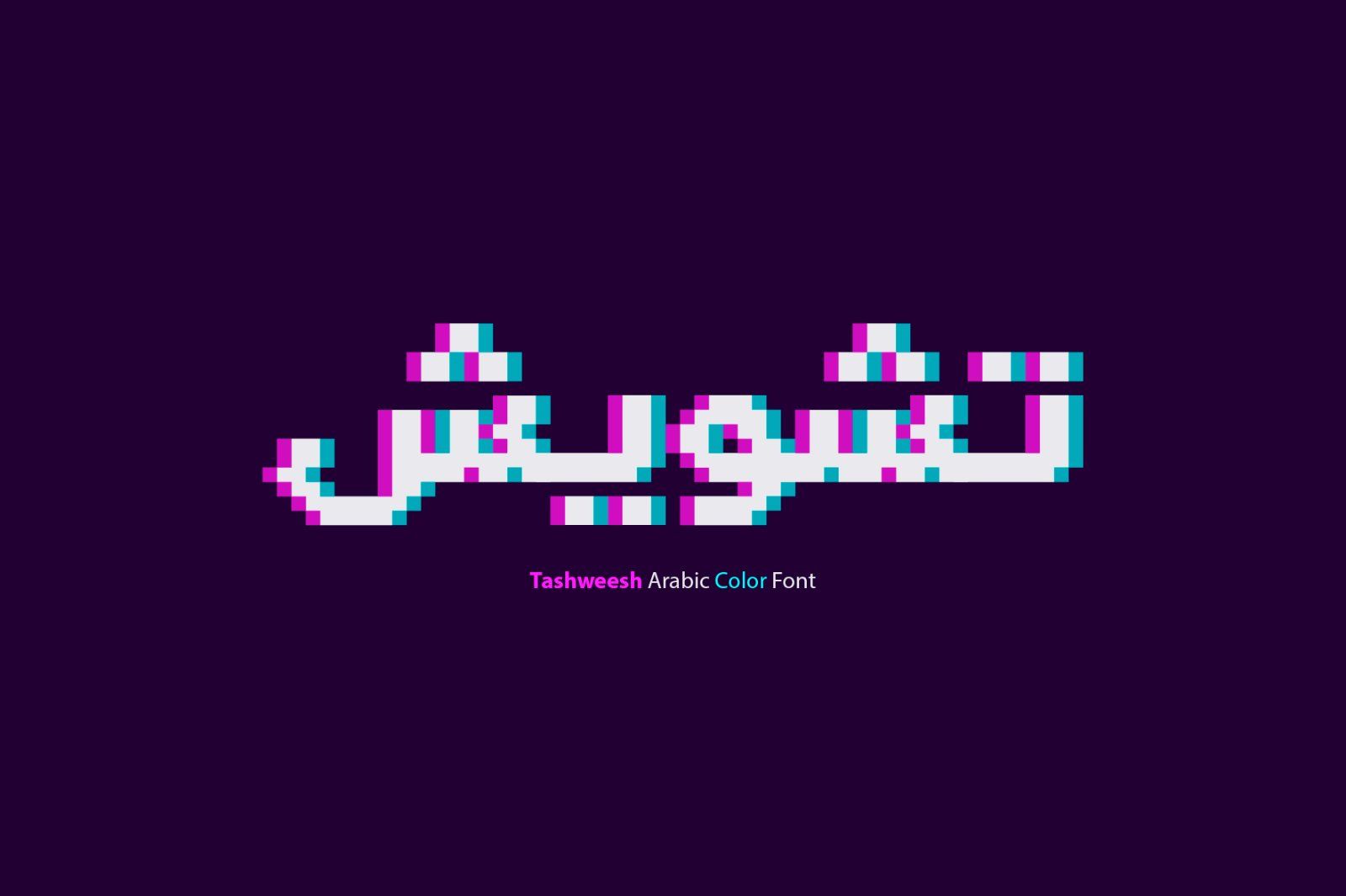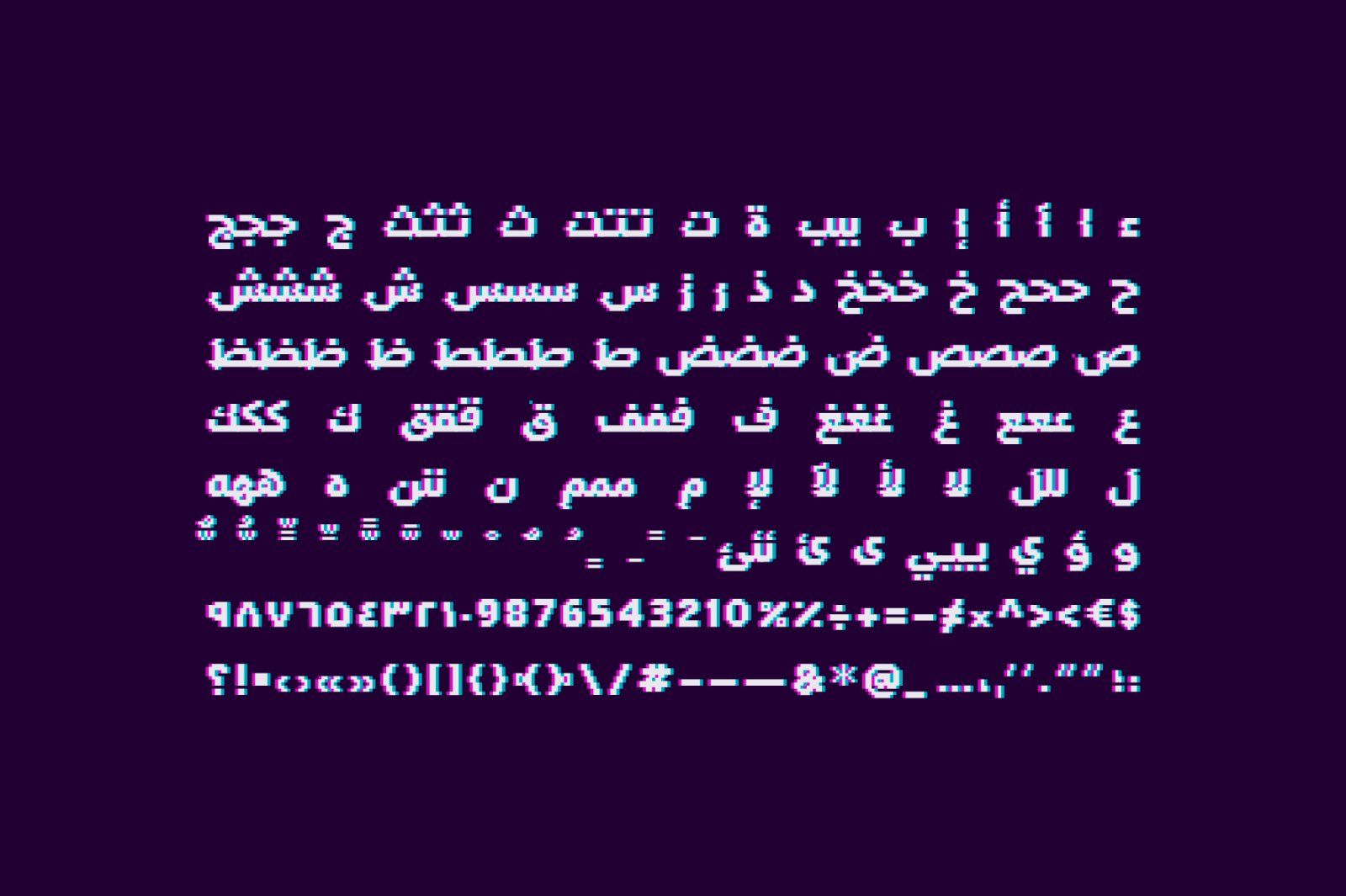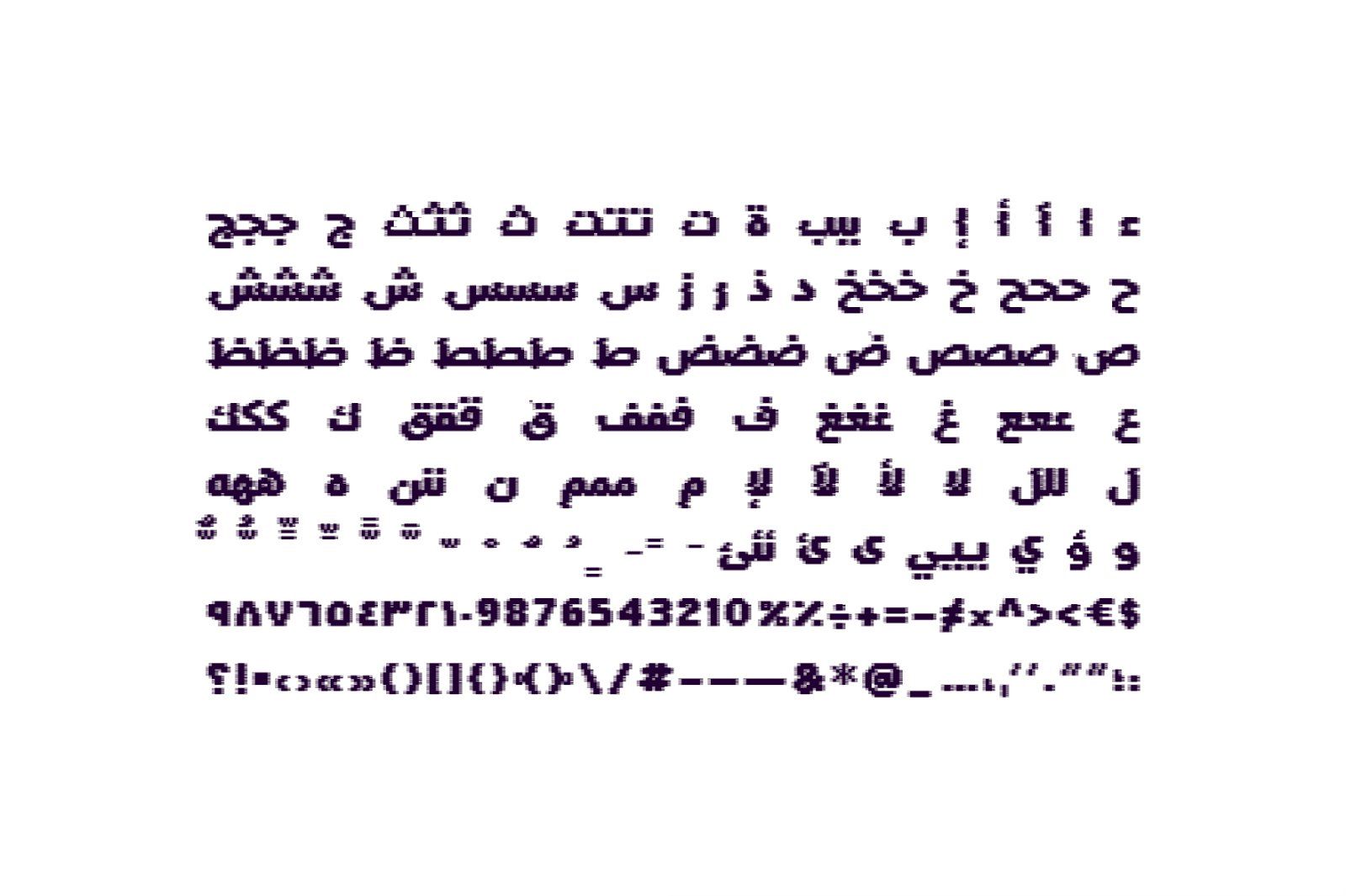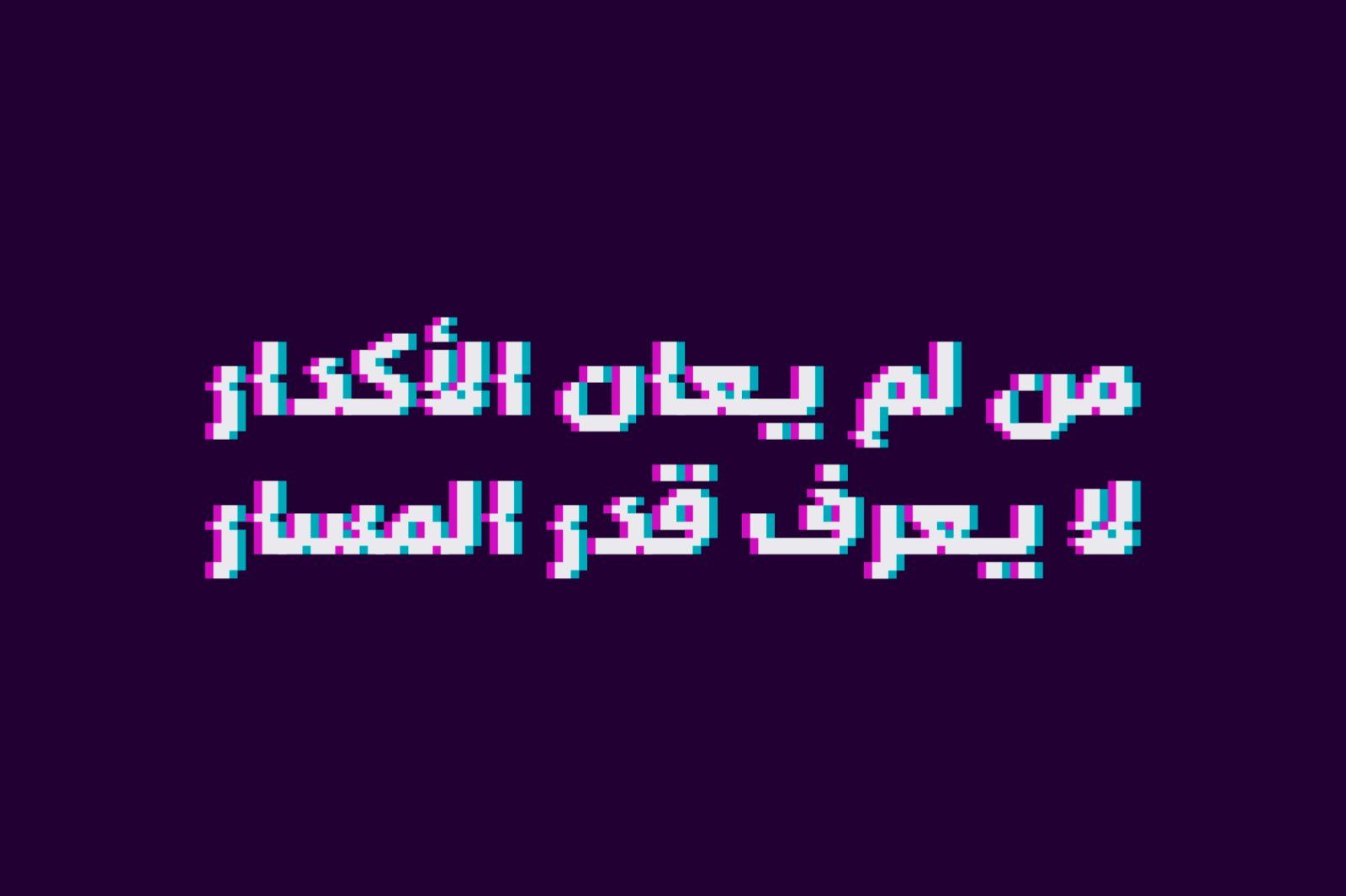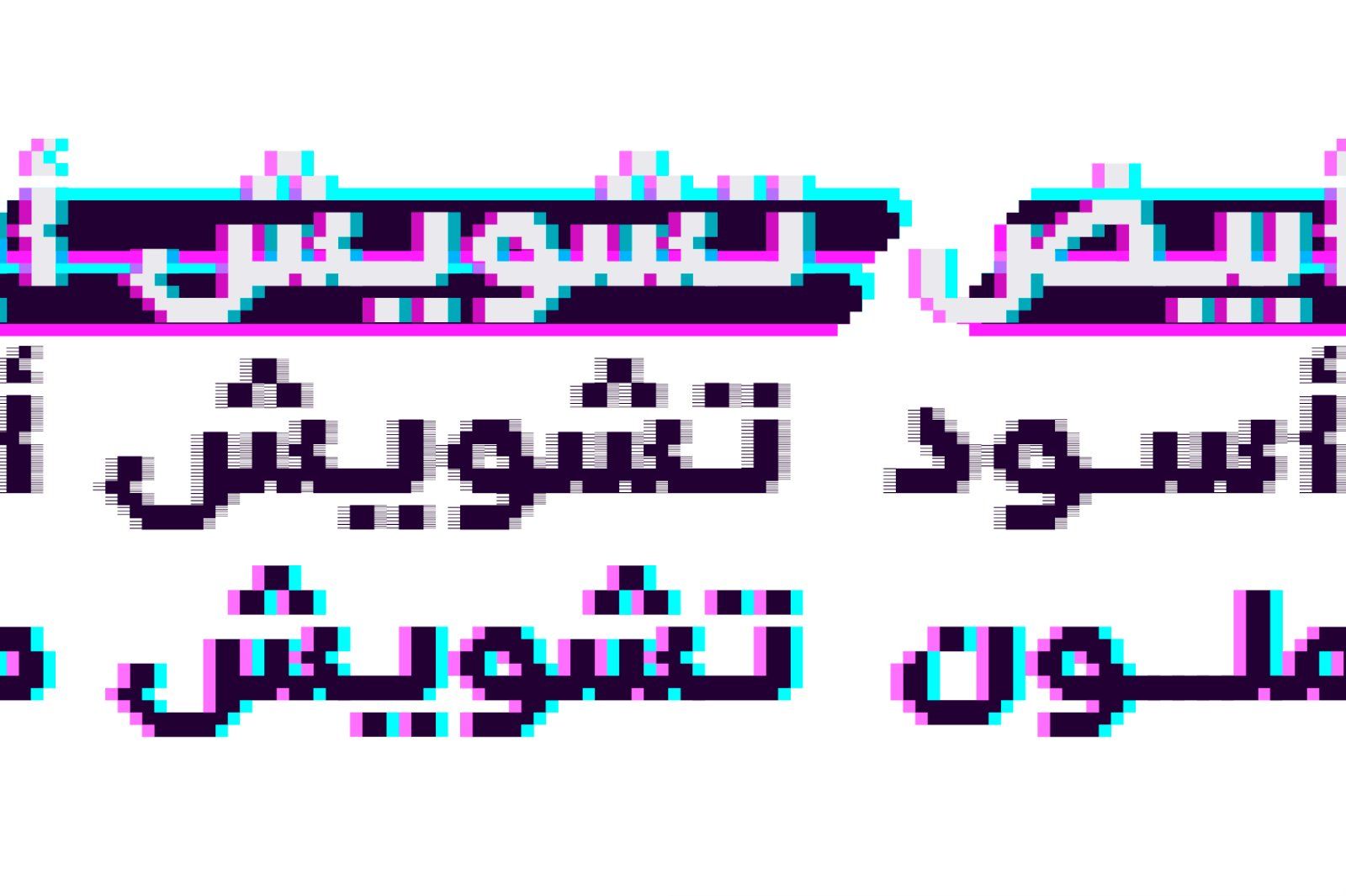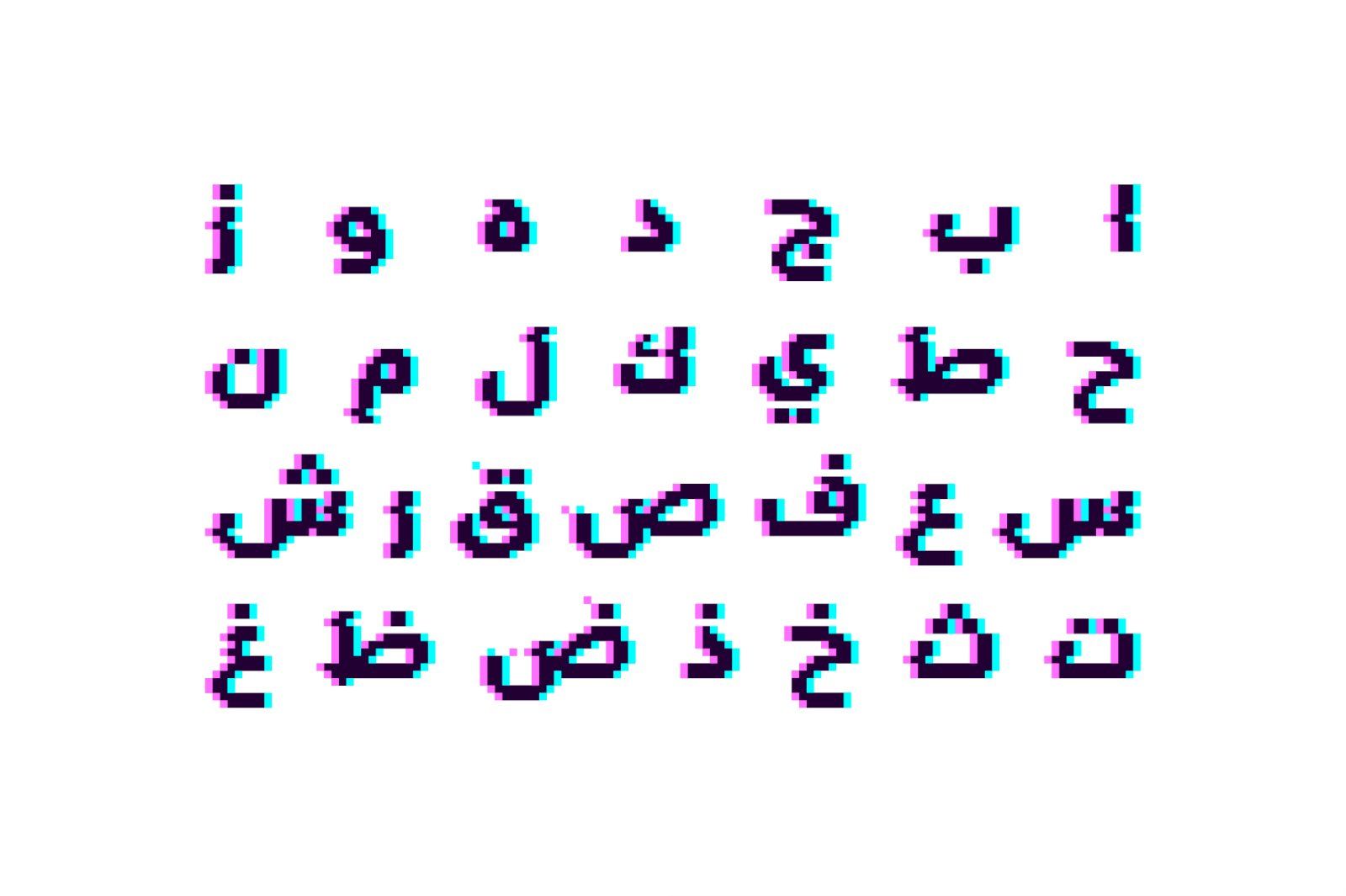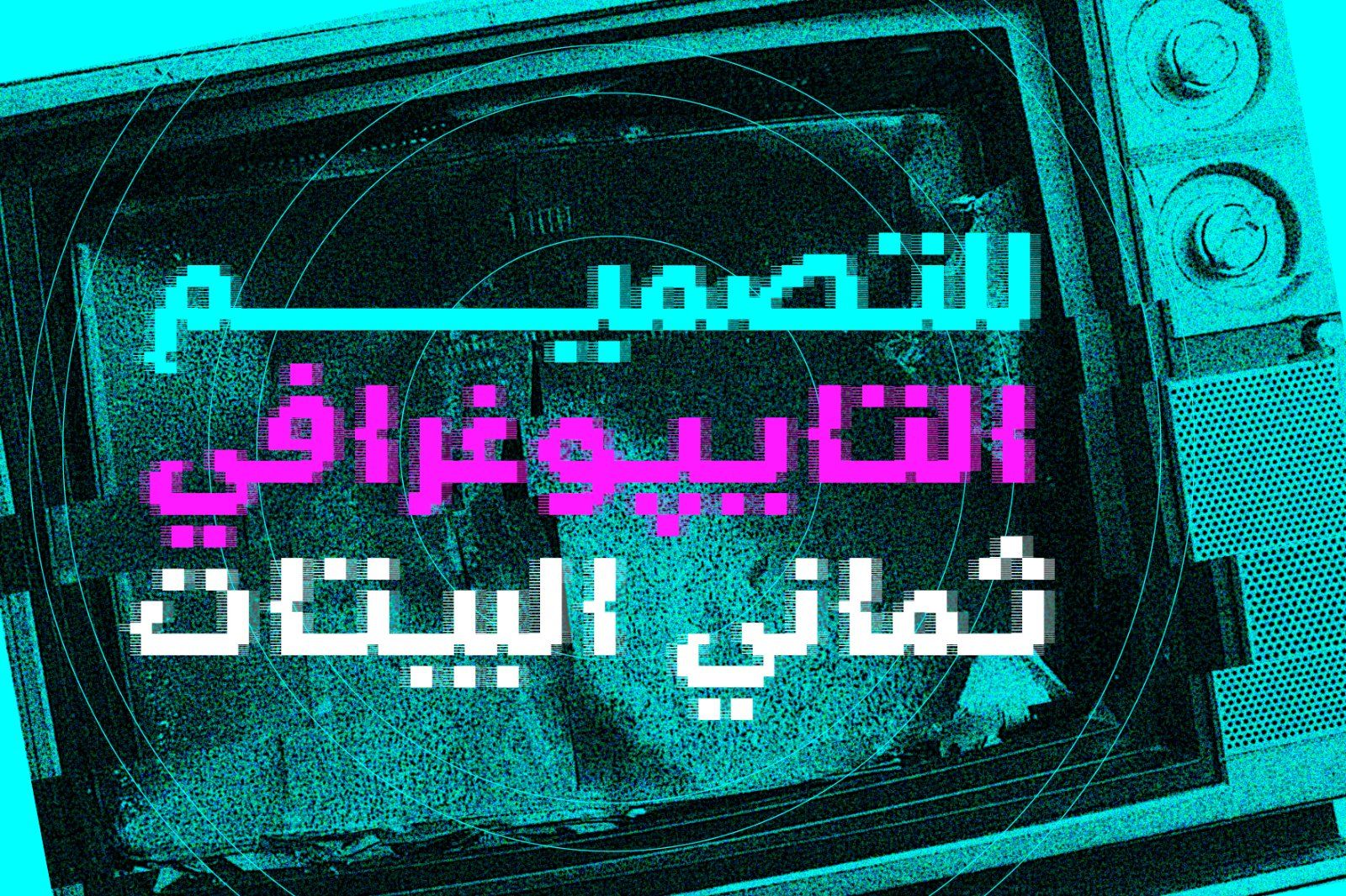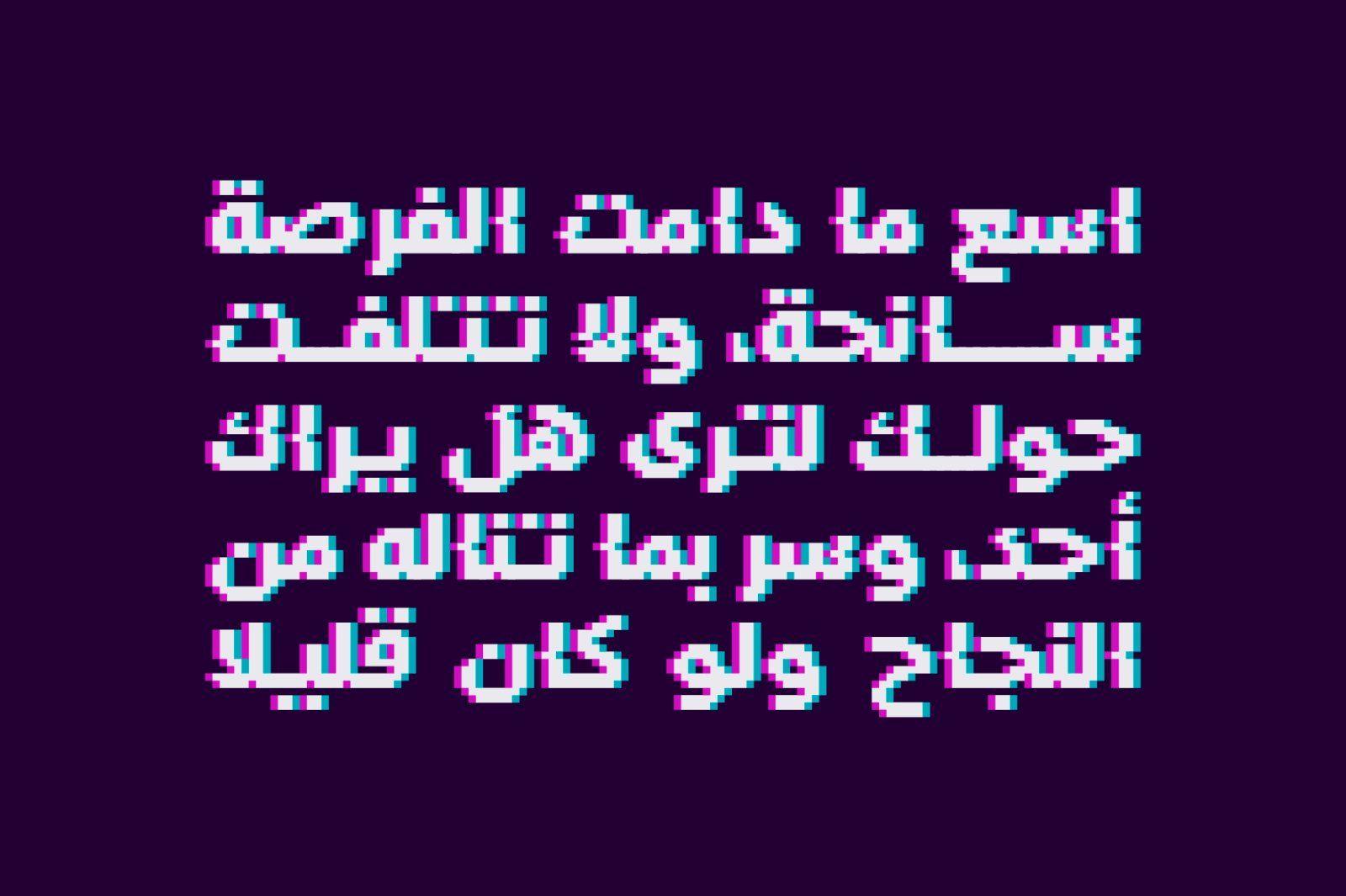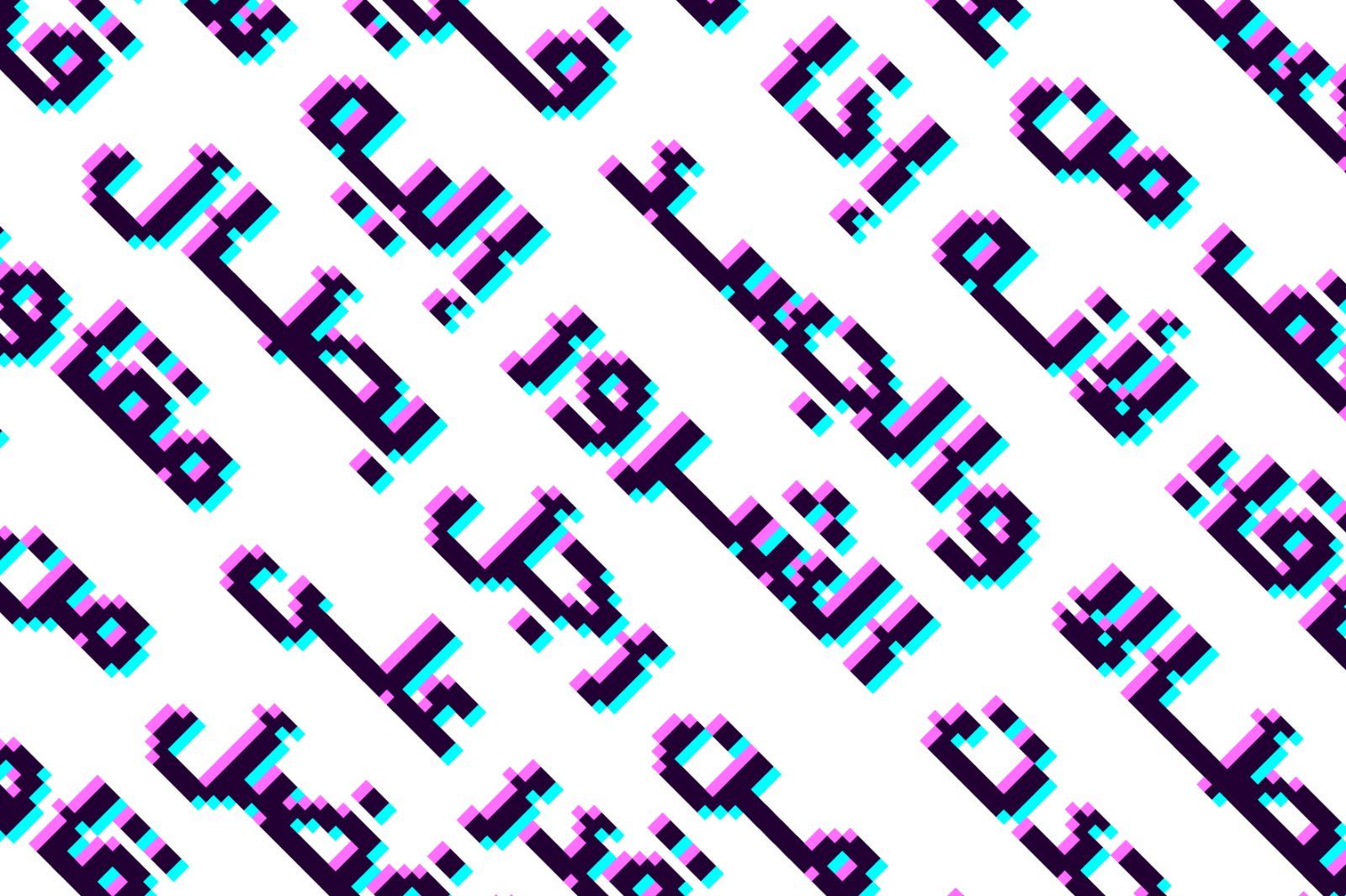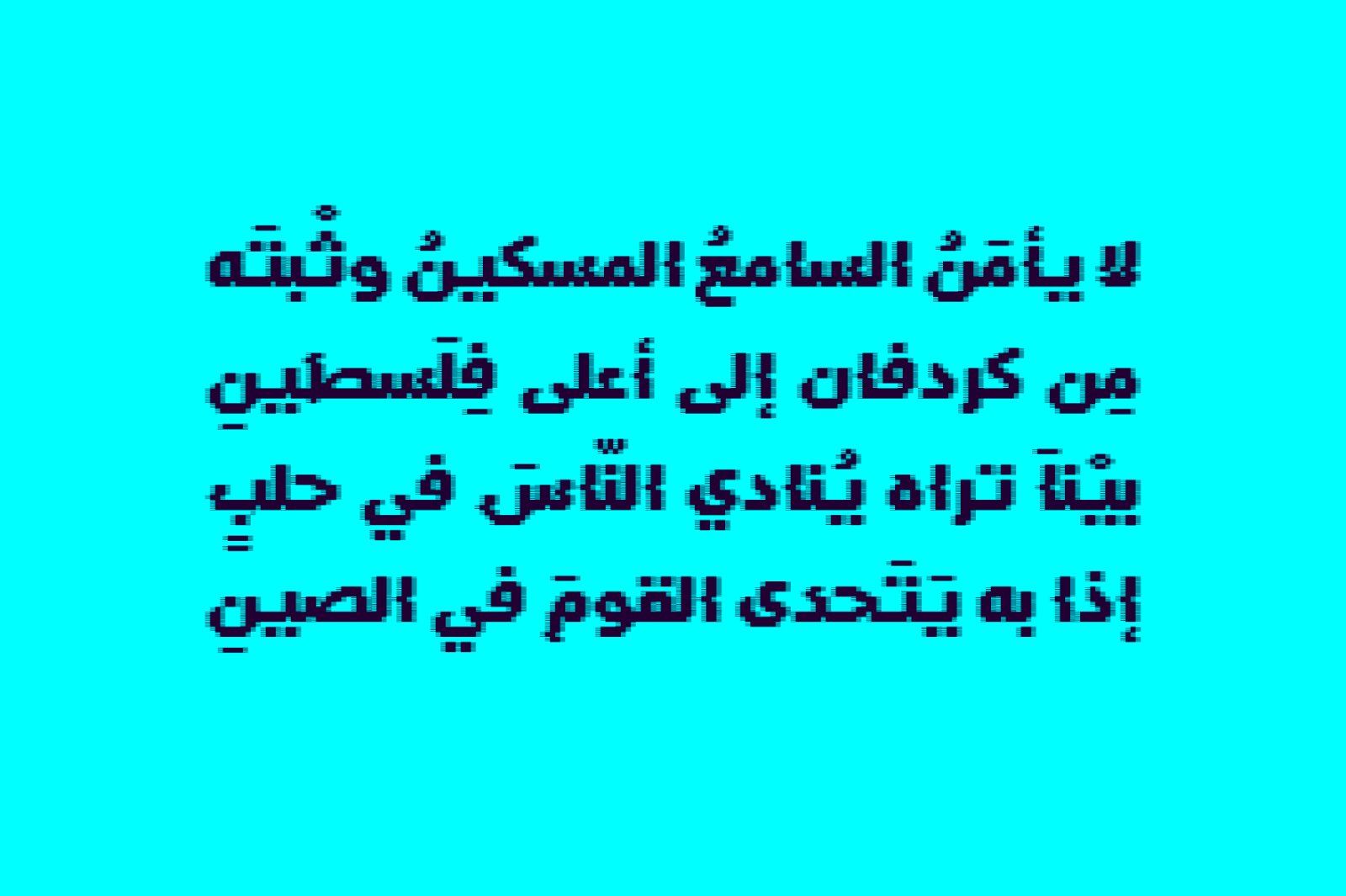
Tashweesh (which is the Arabic word for disruption or obfuscation) is an Arabic color font that features an 8-bit pixelated letterform design. The font is suitable for most modern applications including web, print and smart phones. Tashweesh typeface consists of three styles (Dark, Black and White). It comes in both vector and raster color font formats (OpenType-SVG, COLR and SBIX).